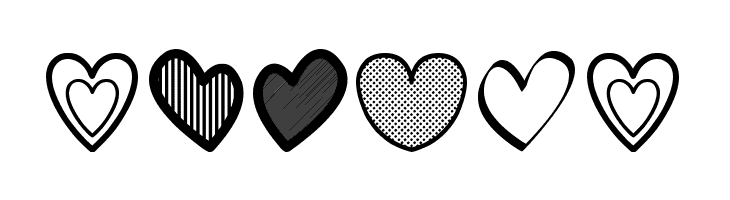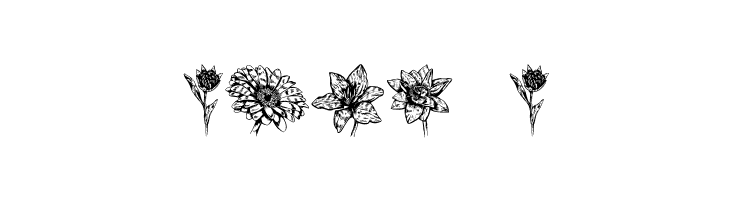
A playful, heart-themed decorative dingbat set.
Festive, decorative banners and ribbons with varied edges and embellishments.
A playful, irregular font with a hand-crafted, cut-out paper style.
A playful decorative font made entirely of diverse heart icons.
A decorative snowflake dingbat font with diverse, detailed snowflake icons.
A quirky, distressed typewriter-style font with a vintage aesthetic.
Hand-drawn floral illustrations used as character glyphs.
Decorative fairy tale icon font with playful, bold silhouettes.
A diverse set of whimsical hot air balloon illustrations in various styles.
A decorative dingbat font of bold sea life silhouettes.